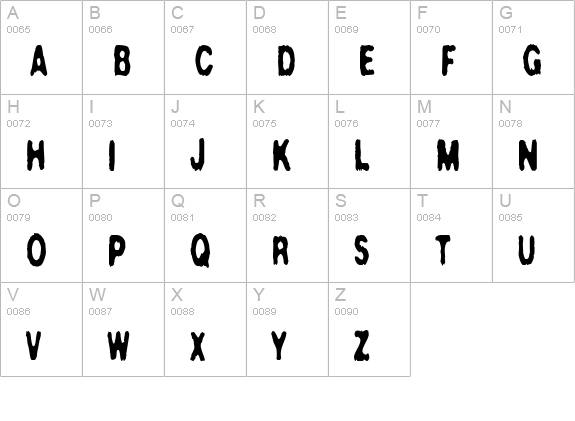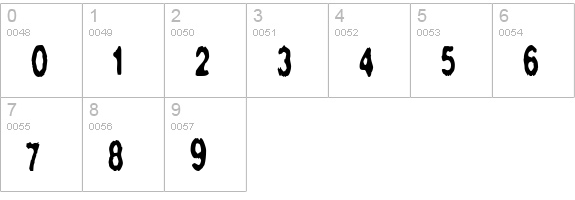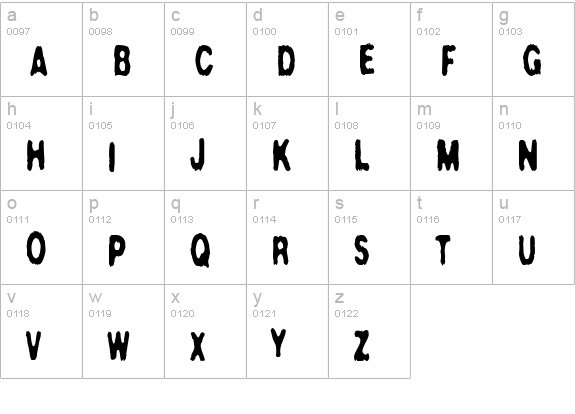
CrushNo47 Font Details
CrushNo47 font is a bold and modern typeface that exudes confidence and creativity. With its strong, angular lines and distinctive letterforms, this font is sure to make a statement in any design project. Whether you're creating a logo, poster, or branding materials, CrushNo47 font will add a touch of personality and sophistication. Best of all, CrushNo47 font is completely free to download at FontsMarket.com. This means you can elevate your designs without breaking the bank. So why wait? Download CrushNo47 font today and unleash your creativity with this stylish and versatile typeface.